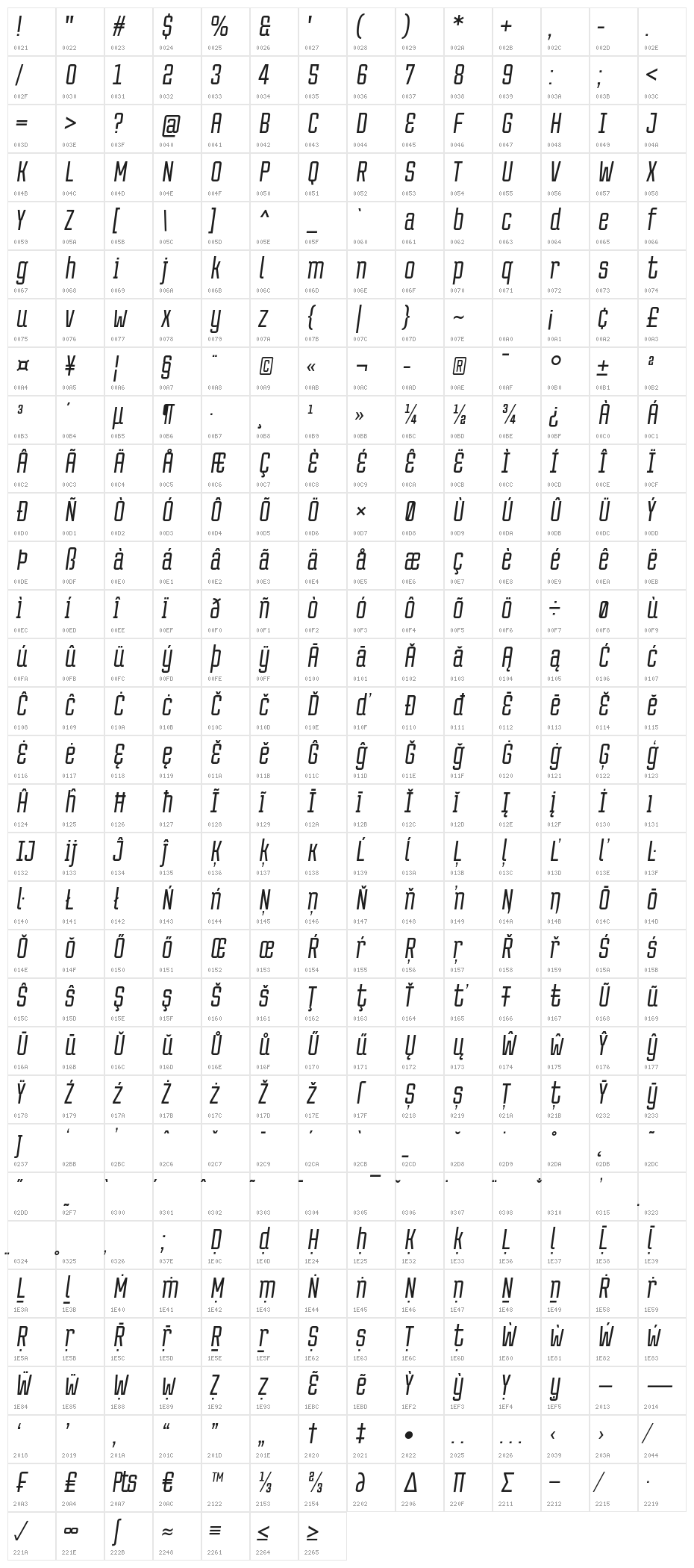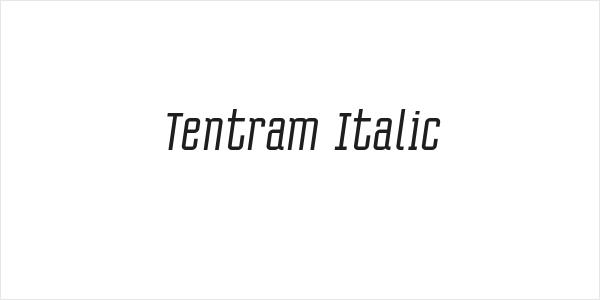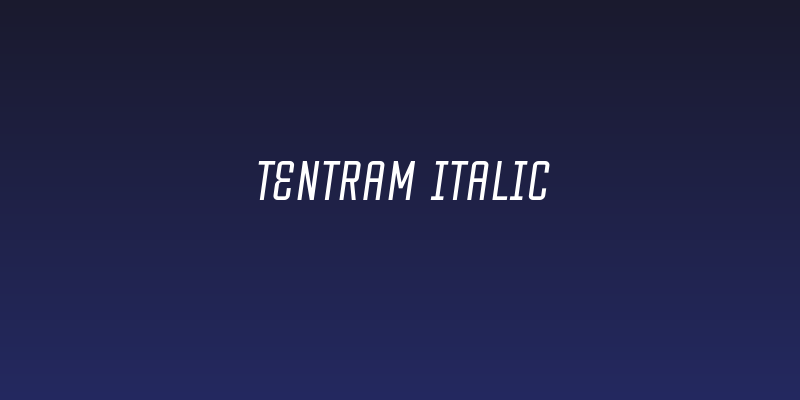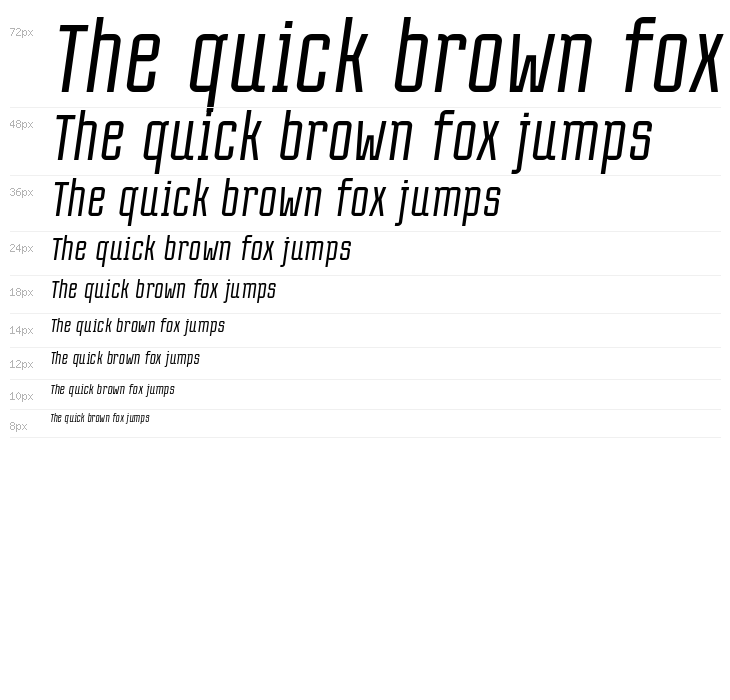
Tentram Italic Font
Tentram Italic Description
This font features a sleek, italicized design with a modern and streamlined appearance. The characters are slightly condensed, giving it a compact and efficient look. The strokes are consistent in weight, providing a uniform appearance across all characters. The font maintains a medium contrast, with subtle variations in stroke thickness that add a touch of elegance without compromising readability. The angled posture of the letters adds a dynamic and forward-moving feel, making it suitable for projects that require a sense of motion or progress. The numerals and special characters are designed to match the overall style, ensuring a cohesive look throughout.
Use CaseHeadlines, Logos, Advertising
Proposed ProjectsIdeal for branding, advertising, and editorial design where a modern and dynamic look is desired.